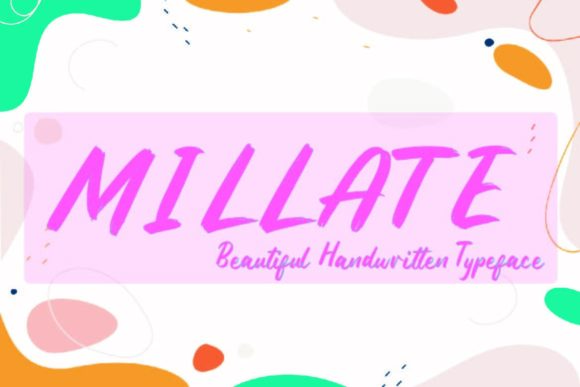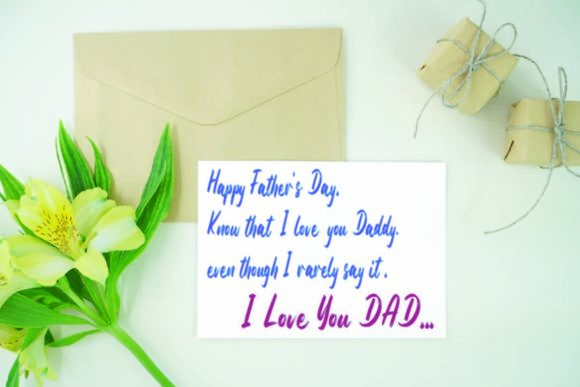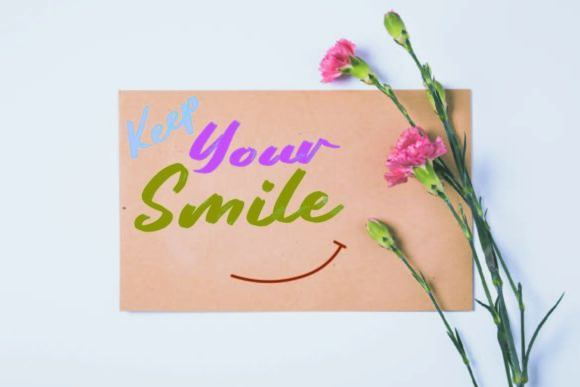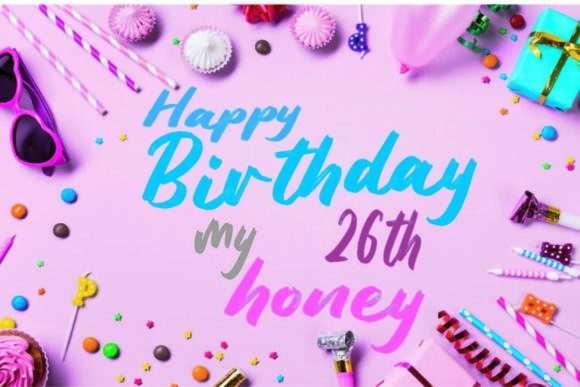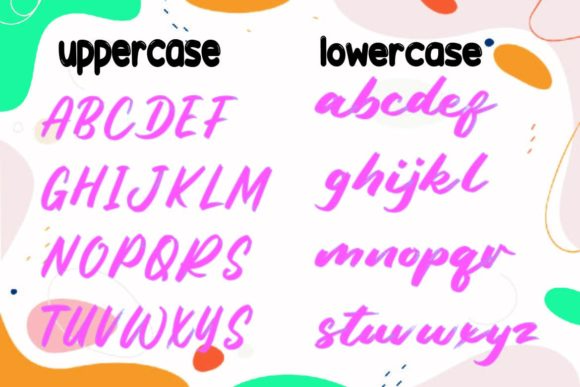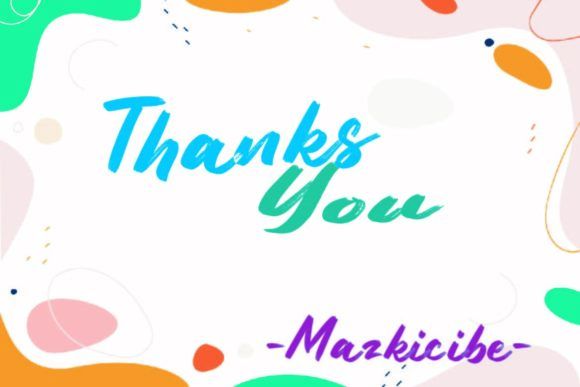
Millate Font
About Millate Font
Millate is a beautiful modern handwritten font combined with a sweet touch and beautifully curved letters. Using a touch of soft curves so that it is pleasing to the eye.
Millate Font Spirit is great for Wedding invitations, fashion magazines, logos, and signatures, and is suitable for watermark photography.